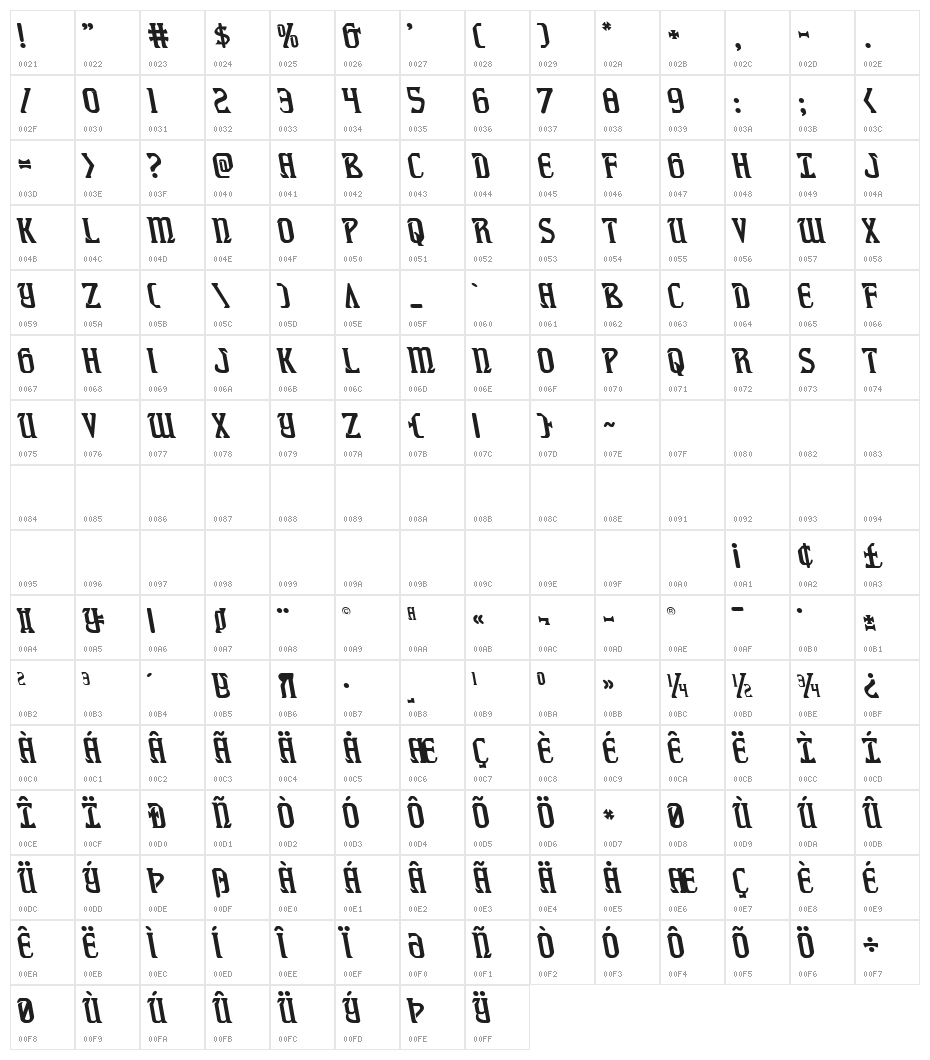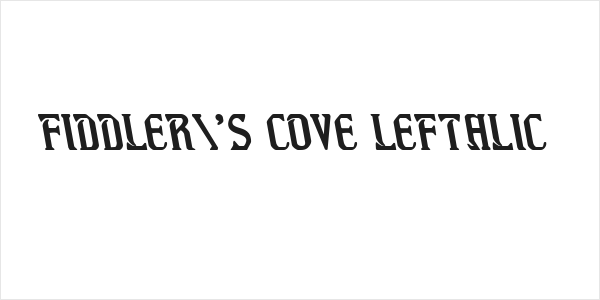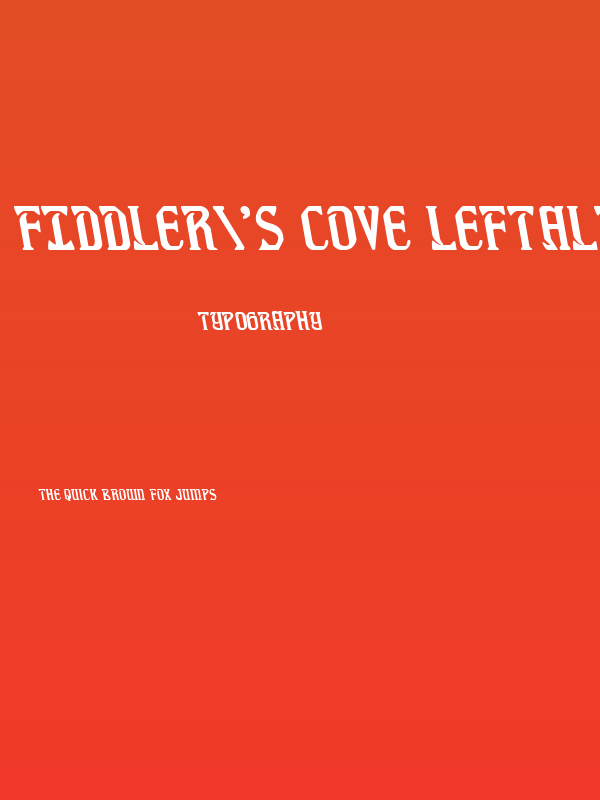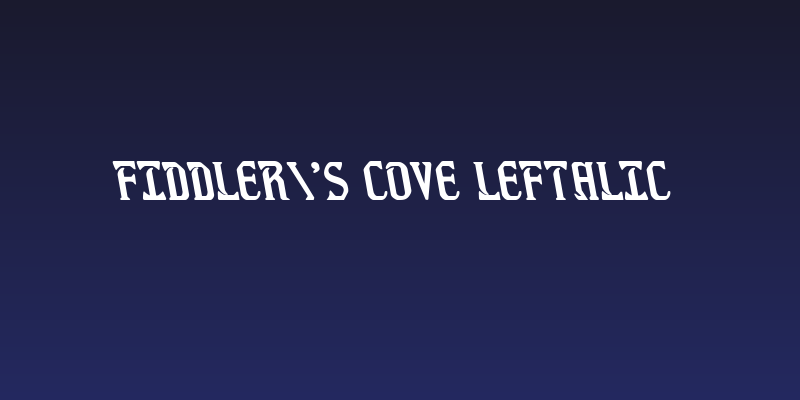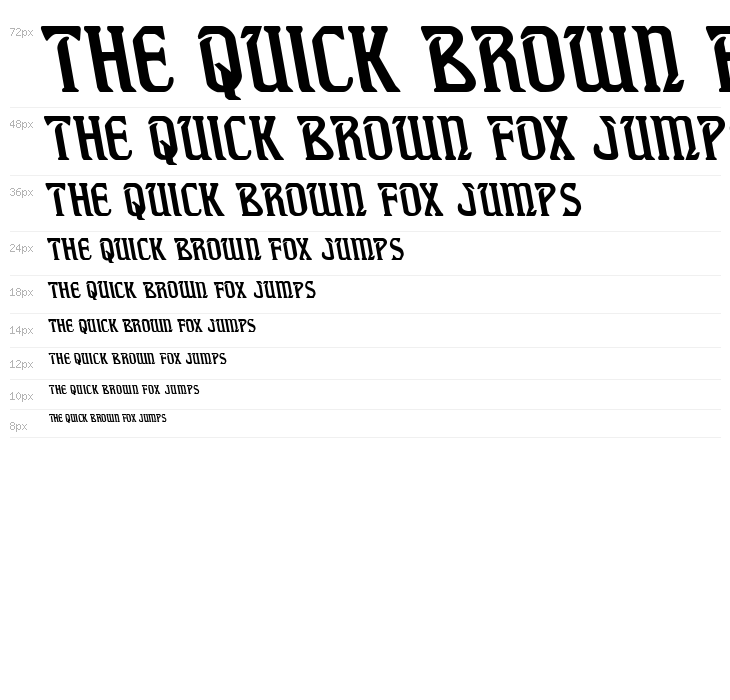
Fiddler's Cove Leftalic Font
Fiddler's Cove Leftalic Description
This font features a bold and dynamic style with a distinct leftward slant, giving it a unique and energetic appearance. The characters are designed with sharp angles and a strong presence, making it ideal for attention-grabbing headlines or titles. The uppercase and lowercase letters maintain a consistent style, with the uppercase letters being particularly striking due to their boldness. The numbers and special characters follow the same design principles, ensuring a cohesive look across all text elements. The font's boldness and angular design make it suitable for projects that require a strong visual impact.
| Proposed Projects | Ideal for posters, logos, and branding materials that require a bold and energetic look. |